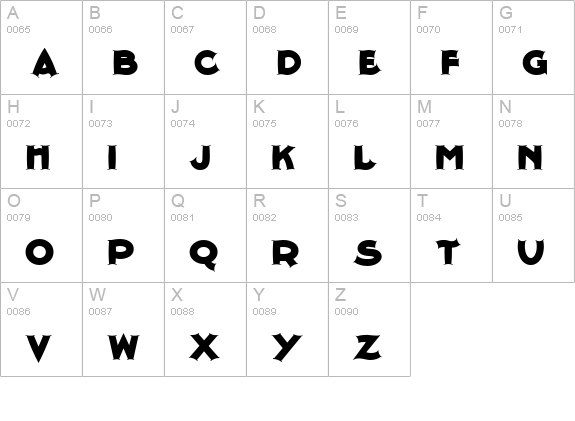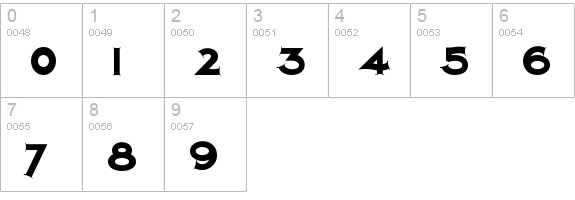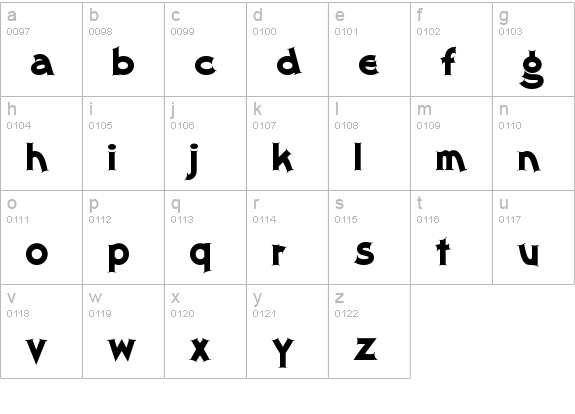
Thimble Theatre Nf Font Details
Thimble Theatre Nf is a captivating and charming font that evokes a sense of nostalgia and whimsy. With its vintage-inspired design and playful letterforms, this font is perfect for adding a touch of retro elegance to any project. The timeless appeal of Thimble Theatre Nf is enhanced by its unique details and hand-drawn aesthetic. Each letter is carefully crafted with intricate curves and delicate strokes, creating a visually pleasing and harmonious composition. This font is not only visually delightful but also highly versatile. Its legibility makes it suitable for a wide range of applications, including branding, packaging, invitations, posters, and more. Whether you're designing a logo for a boutique cafe or creating a whimsical greeting card, Thimble Theatre Nf will bring your ideas to life with its distinctive charm. One of the best features of Thimble Theatre Nf is that it is freely available to download at FontsMarket.com. This means that you can enjoy the beauty and versatility of this font without any limitations. Whether you're a professional designer or a hobbyist, you can freely access this font and incorporate it into your creative projects. Embrace the nostalgia and playfulness of Thimble Theatre Nf, and let its enchanting charm captivate your audience. Download this font from FontsMarket.com today and embark on a journey of creativity and inspiration.